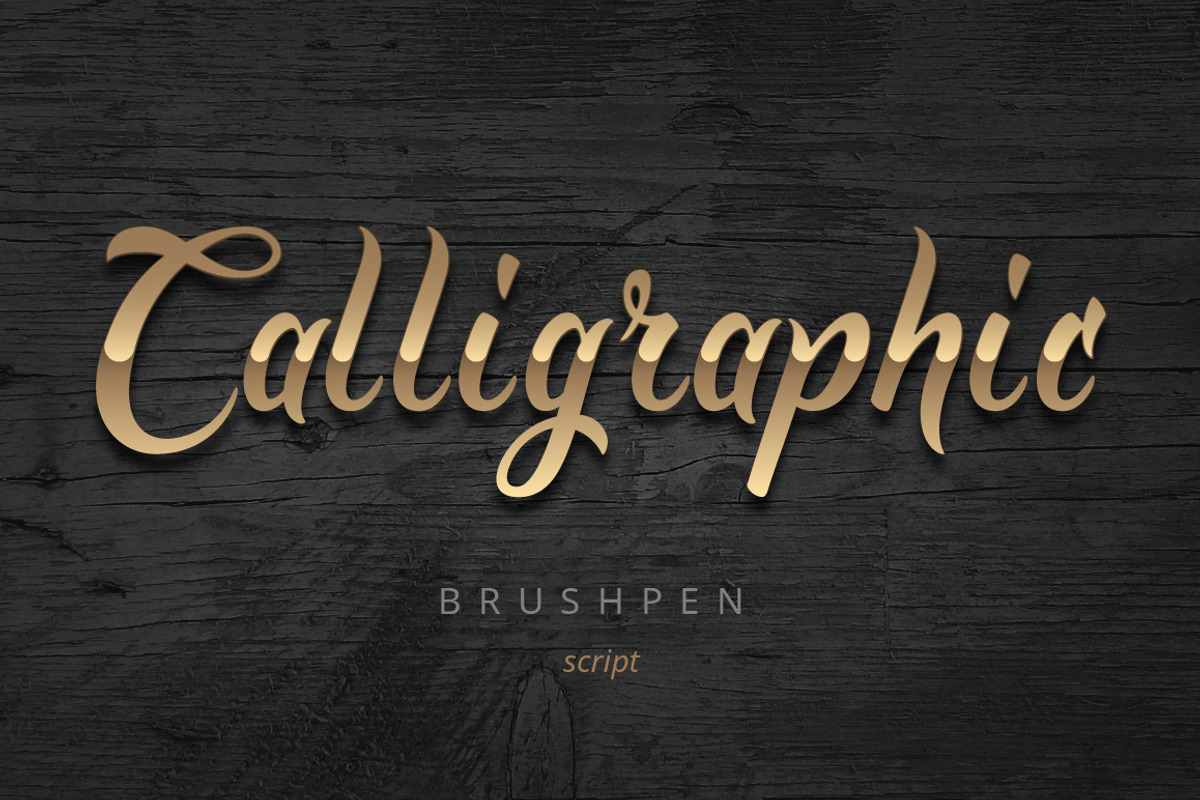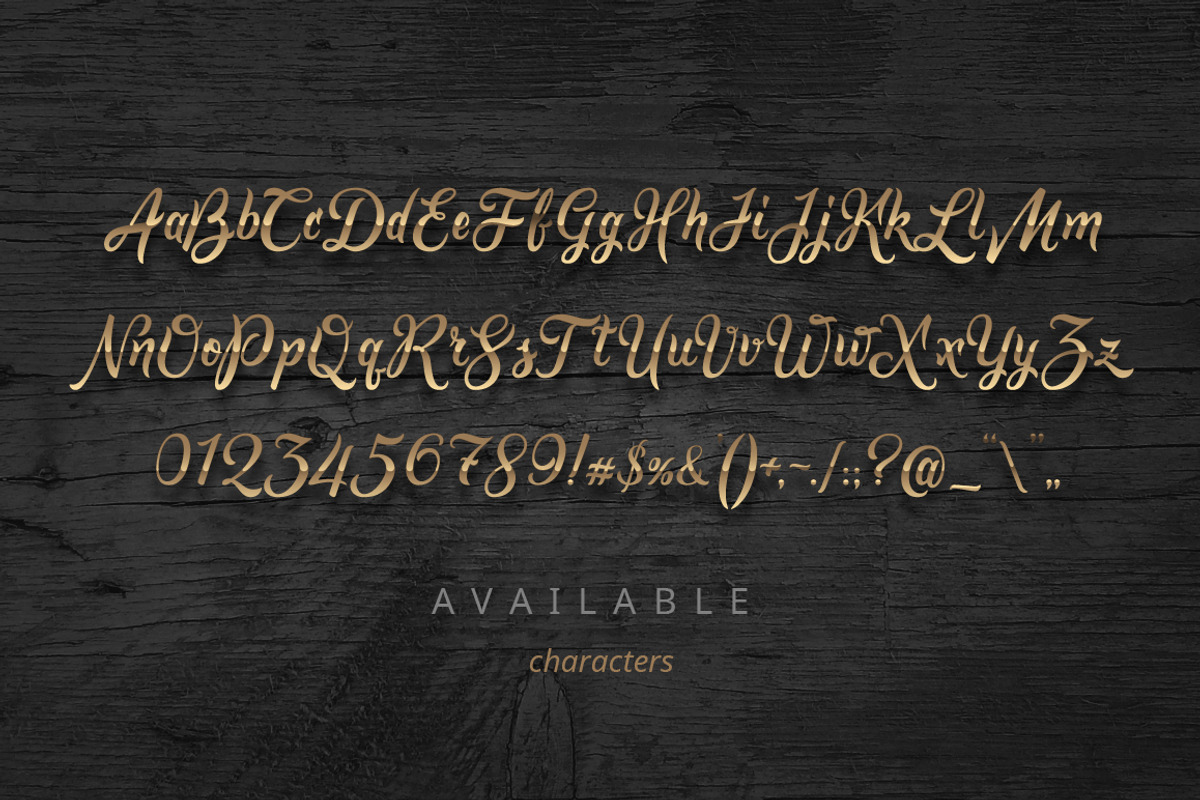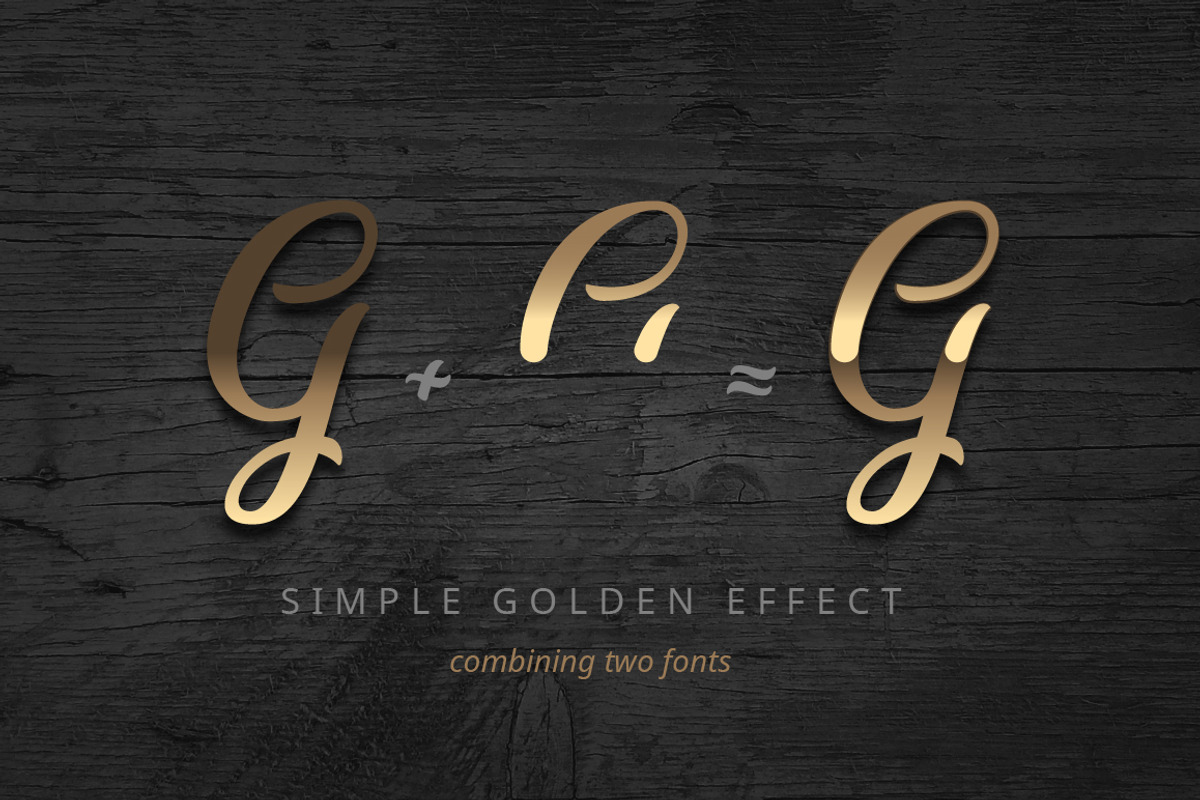
Golden Brush font
Golden Brush font by Gleb Guralnyk is a font selected for branding, posters, packaging, typography.
Why Golden Brush font is worth a look
Golden Brush font by Gleb Guralnyk fits naturally into Branding, posters, packaging, typography.